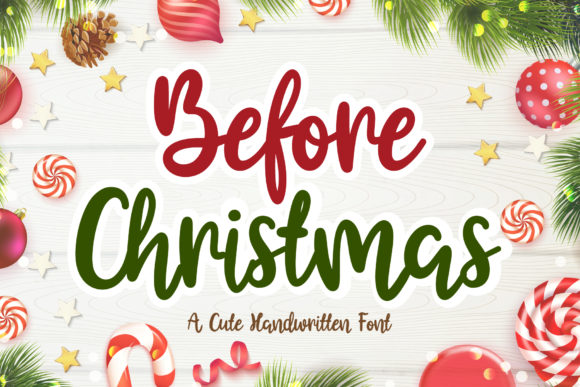
Step into the enchanting world of Christmas cheer, where handwritten fonts dance across your screens! Before Christmas font, a creation of the ingenious AquariiD, is a script font that exudes warmth and merriment like freshly baked Christmas cookies. Its charming and whimsical style adds a touch of magic to your designs, making it the perfect companion for any holiday-themed project.
Crafted with meticulous precision, Before Christmas font captures the essence of the festive season with its delicate swirls and playful letterforms. Each character dances joyously, evoking the heartwarming memories of childhood Christmas mornings. The smooth curves and sweeping strokes bring an element of elegance and refinement to your designs, making them stand out from the ordinary.
Before Christmas font is a versatile performer, effortlessly adapting to a variety of digital and print applications. Whether you're creating social media posts, eye-catching posters, heartfelt greeting cards, or crafting stunning invitations, this font delivers impeccable results. Its delightful presence adds a touch of whimsy and cheer to your projects, instantly capturing the attention of your audience.
As you explore the diverse character set of Before Christmas font, you'll discover a treasure trove of creative possibilities. From the graceful lowercase letters to the elegant uppercase characters, each element is meticulously designed to harmonize perfectly, ensuring a visually cohesive and aesthetically pleasing outcome.
But the magic of Before Christmas font doesn't stop there. This remarkable font possesses a multilingual charm, supporting a wide range of languages. Unleash your creativity and share your holiday greetings with loved ones around the world, spreading the joy of Christmas in their native tongues.
Join the chorus of satisfied users who have already fallen in love with Before Christmas font. Its remarkable appeal has earned it rave reviews, with designers praising its versatility, charm, and ability to transform ordinary projects into extraordinary masterpieces.
So, embark on a creative journey with Before Christmas font and let the festive magic flow. Create designs that capture the essence of the season, spread joy with personalized Christmas cards, and enchant your audience with social media posts that radiate warmth and cheer. Let Before Christmas font be your gateway to a world of Christmas wonders!